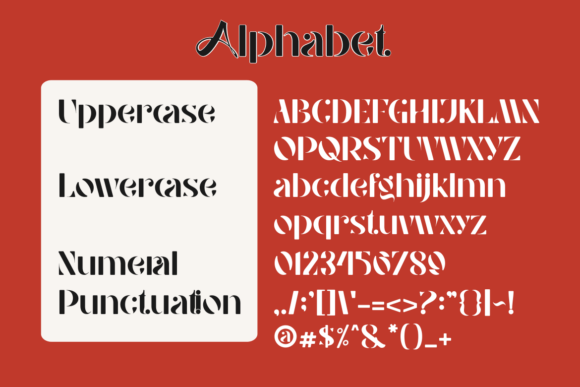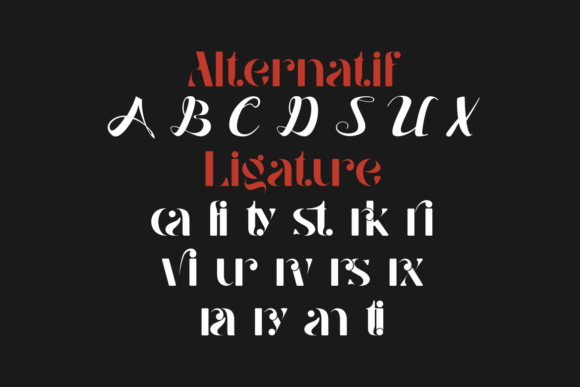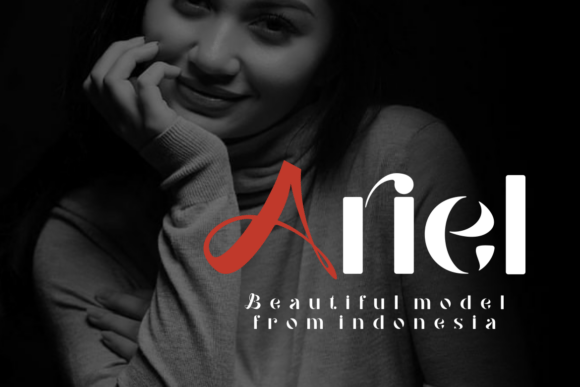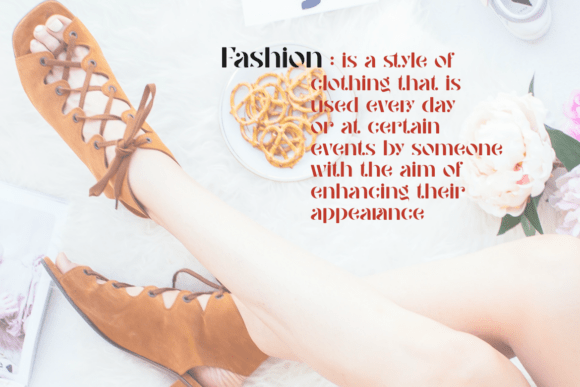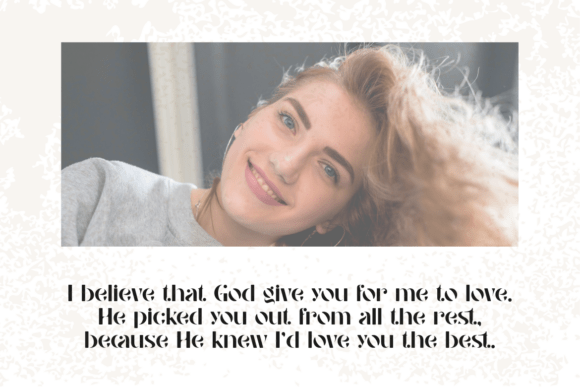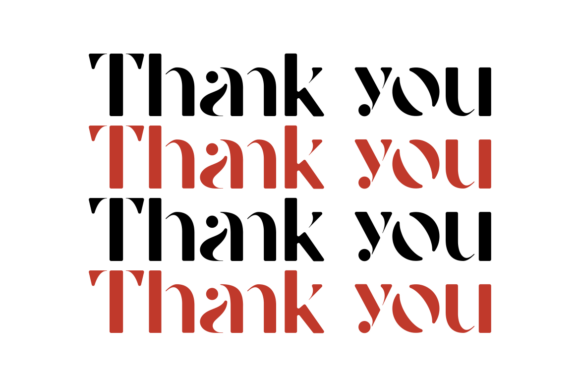
The Perfect Blend of Sophistication and Artistic Flair
Have you ever been browsing through a high-end fashion magazine, and a particular headline or logo catches your eye, making you pause for a moment to appreciate the beauty of the design? For designers, this is often the moment when inspiration strikes, and a new project begins to take shape. It’s in these moments that the right font can make all the difference, elevating a design from mere functionality to a true work of art.
Enter Astra Xavi Font, a refined and expressive sans serif font that combines sharp modern cuts with elegant curves and unique alternates. This versatile typeface is perfect for luxury branding, editorial layouts, and stylish logos, delivering both sophistication and artistic flair. Whether you’re working on a high-end fashion campaign or a sleek tech brand, Astra Xavi Font is the perfect tool to help you create designs that turn heads.
Astra Xavi Font Key Features
- Unique Characteristics: Astra Xavi Font features a unique blend of modern and classic elements, with clean lines and geometric shapes
Astra Xavi Font Review
I recently had the chance to work with the Astra Xavi Font, and I must say it’s a solid choice for any project that needs a touch of elegance and sophistication. ✨ The font’s clean lines and modern design make it perfect for corporate branding, luxury goods, and high-end fashion labels. The font’s versatility also allows it to be used for a wide range of applications, from logos to body text.
One of the standout features of the Astra Xavi Font is its excellent legibility, even at small font sizes. This makes it a great choice for digital applications where text is often viewed on smaller screens. ✨ The font also comes with a range of weights and styles, allowing designers to create a consistent visual identity across different materials and platforms.
- ⚠️ The font may not be suitable for projects that require a more playful or casual tone, as its formal design may come across as too serious.
- ⚠️ The font’s complexity may make it difficult to customize or modify, which could be a limitation for designers who need a high degree of flexibility.
Overall, the Astra Xavi Font is a solid choice for any project that requires a touch of luxury and sophistication. While it may have some limitations, its excellent legibility and versatility make it a great addition to any designer’s toolkit.
Tips for Getting the Most Out of Astra Xavi Font
Use Astra Xavi Font to create a unique and modern look in your designs.
Combine Astra Xavi Font with other fonts to create a visually appealing contrast.
Experiment with different font sizes and colors to achieve the desired effect.
Astra Xavi Font is ideal for:
Headlines and titles
Business cards and resumes
Marketing materials and social media graphics
Montserrat is a sans-serif font designed for digital use. It is highly legible and versatile, making it suitable for a wide range of designs, from headlines to body text. Montserrat is a popular alternative to Astra Xavi Font due to its clean and modern aesthetic.
Comparison: Montserrat has a more geometric and minimalist feel compared to Astra Xavi Font’s more rounded and playful style. Montserrat is ideal for designs that require a clean and sophisticated look.
Ostrich Sans is a sans-serif font with a friendly and approachable feel. It is designed for use in digital and print media, and is particularly well-suited for headlines and titles. Ostrich Sans has a slightly more playful and casual tone compared to Astra Xavi Font.
Comparison: Ostrich Sans has a more rounded and friendly feel compared to Astra Xavi Font’s more geometric and modern style. Ostrich Sans is ideal for designs that require a friendly and approachable tone.
Inter is a sans-serif font designed for digital use. It is highly legible and versatile, making it suitable for a wide range of designs, from headlines to body text. Inter has a clean and modern aesthetic, with a slightly more geometric feel compared to Astra Xavi Font.